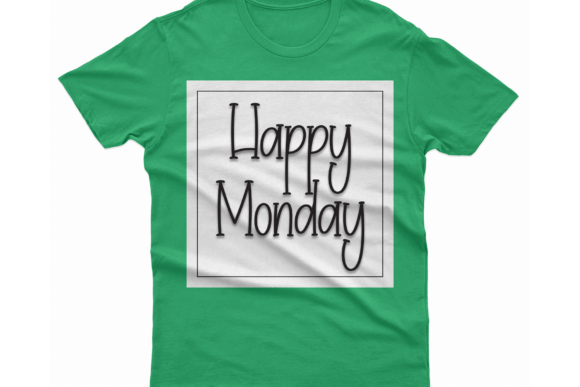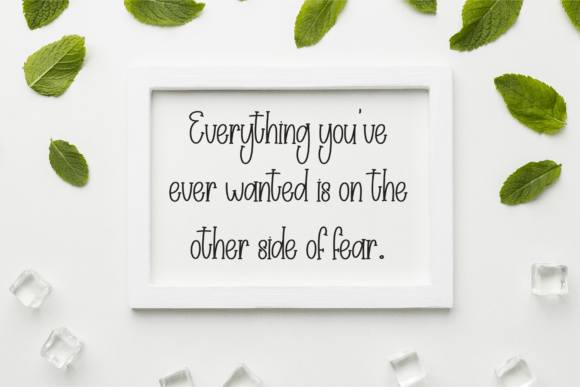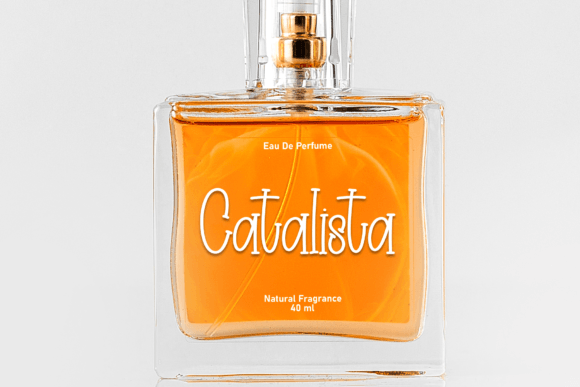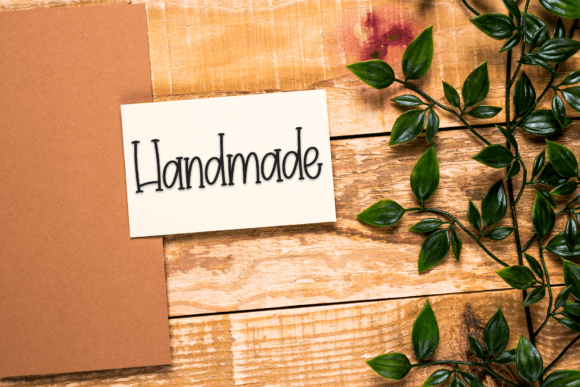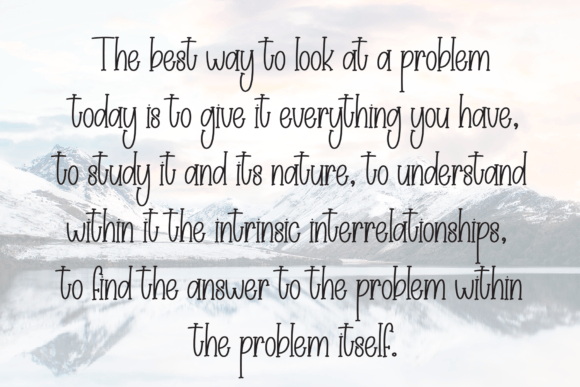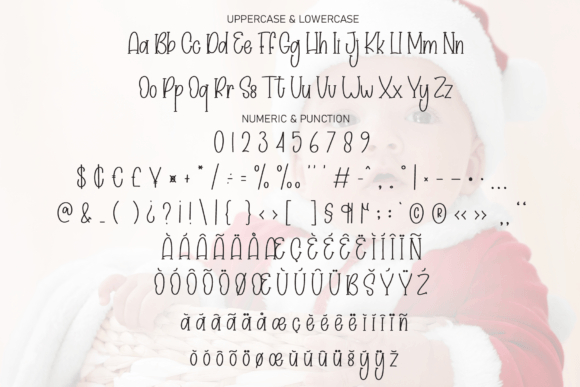
Unwrapping the Magic of Baby Santa Font
As you scroll through social media, you’ve probably stumbled upon a post that instantly puts a smile on your face – a beautifully designed invitation, a heartfelt message, or a playful holiday greeting. The magic often lies in the handwritten font used to convey the message, and today, we’re shining the spotlight on one such font that’s making waves in the design world: Baby Santa Font.
This charming font is more than just a pretty face – it’s a tool that adds warmth and authenticity to any design. Whether you’re a professional designer or a creative enthusiast, Baby Santa Font is the perfect addition to your toolkit. Its natural, flowing strokes evoke a sense of relaxation and friendliness, making it ideal for personal projects, social media, and invitations.
- Unique Characteristics: Whimsical, playful, and cursive design elements, perfect for holiday-themed projects
Baby Santa Font Review
When I first laid eyes on the Baby Santa Font, I was immediately charmed by its whimsical and playful vibe ✨. The font is perfect for creating a festive atmosphere, especially during the holiday season. The curly lines and rounded shapes give it a soft, childlike feel that’s sure to delight.
One of the things that works particularly well with this font is its versatility ✨. It’s suitable for a wide range of designs, from greeting cards and party invitations to social media graphics and even product labels. The font’s cursive style also lends itself well to handwritten-looking text, making it a great choice for creating a personal touch.
While the Baby Santa Font has many charms, there are a few limitations to consider ⚠️:
- Lack of flexibility: The font’s playful style may not be suitable for more formal or corporate designs.
- Limited language support: The font may not support non-Latin languages or scripts, which could be a drawback for international designs.
- Small font size limitations: The font’s curly lines and rounded shapes may not scale well at small font sizes, which could affect readability.
Overall, the Baby Santa Font is a delightful choice for festive designs, but it’s essential to be aware of its limitations ⚠️.
Use the Baby Santa Font to add a playful and festive touch to your holiday designs.
Experiment with different text sizes and styles to create a unique look.
Combine the font with other festive graphics and elements for a cohesive design.
The Baby Santa Font is perfect for holiday projects such as:
– Christmas cards and invitations
– Holiday social media graphics
– Festive email headers and footers
– Holiday party decorations and signage